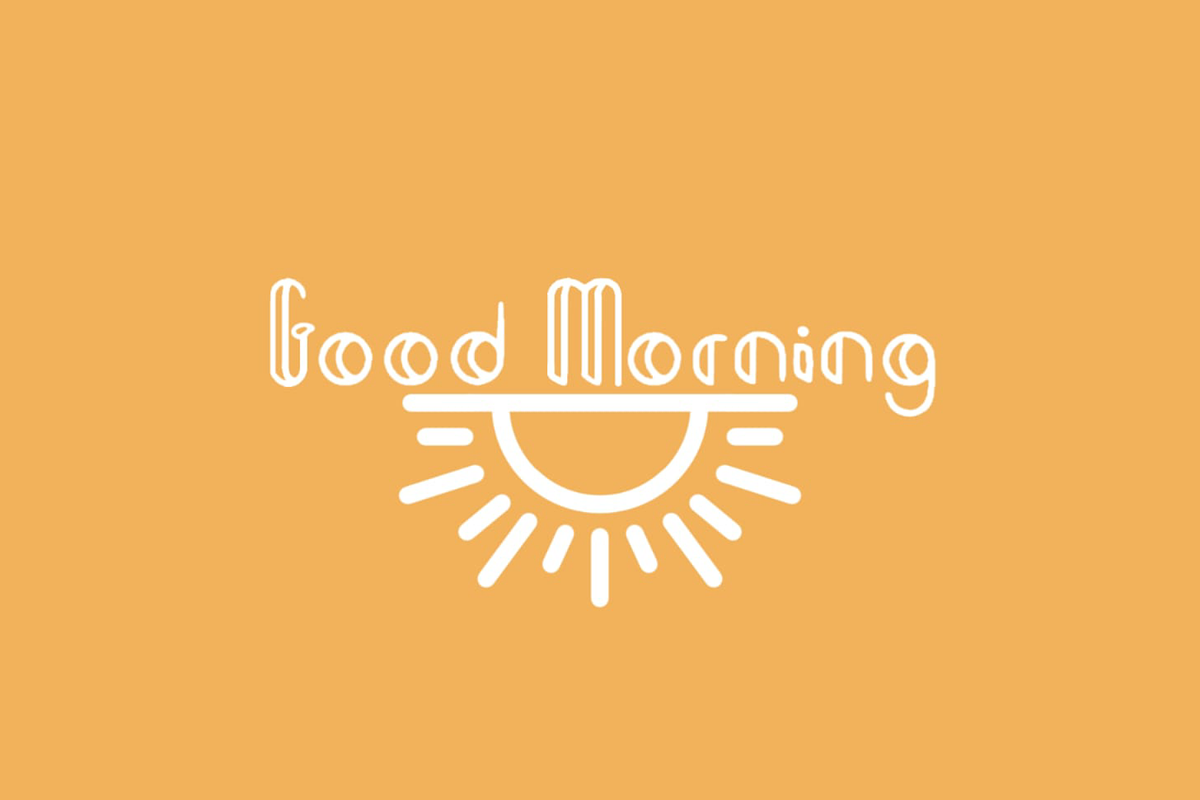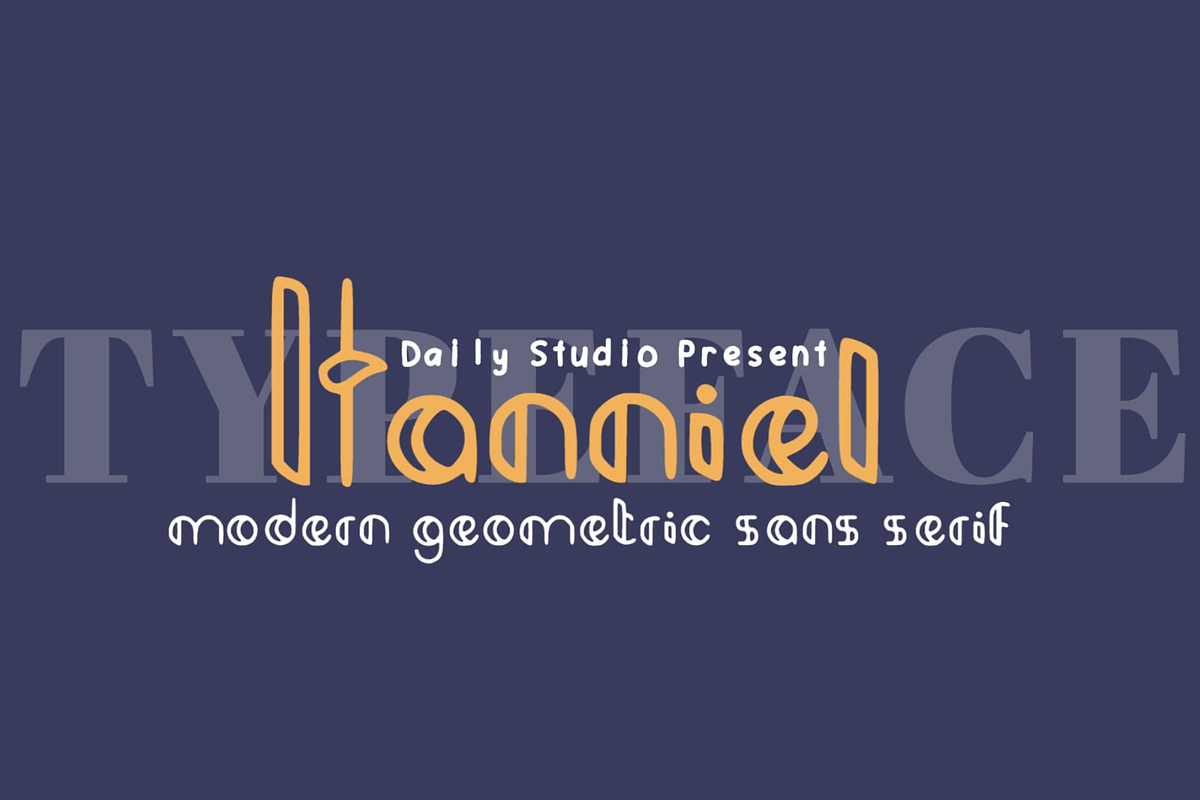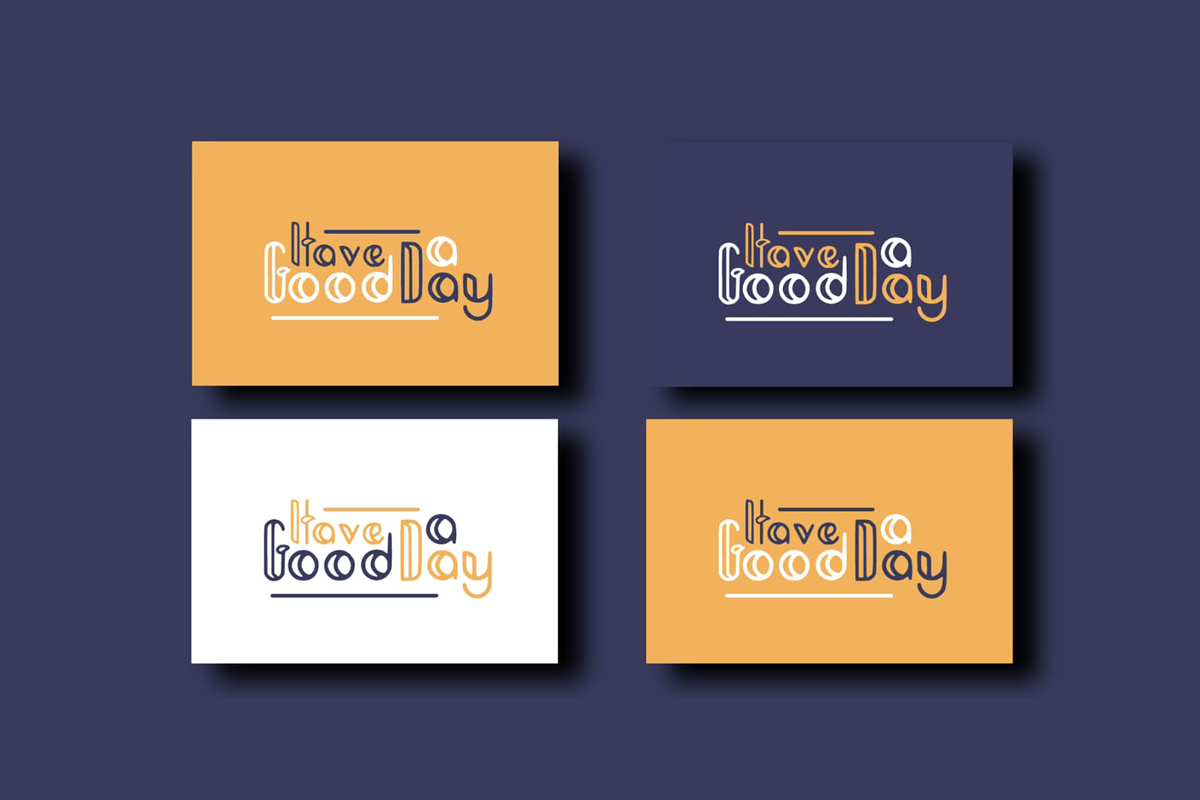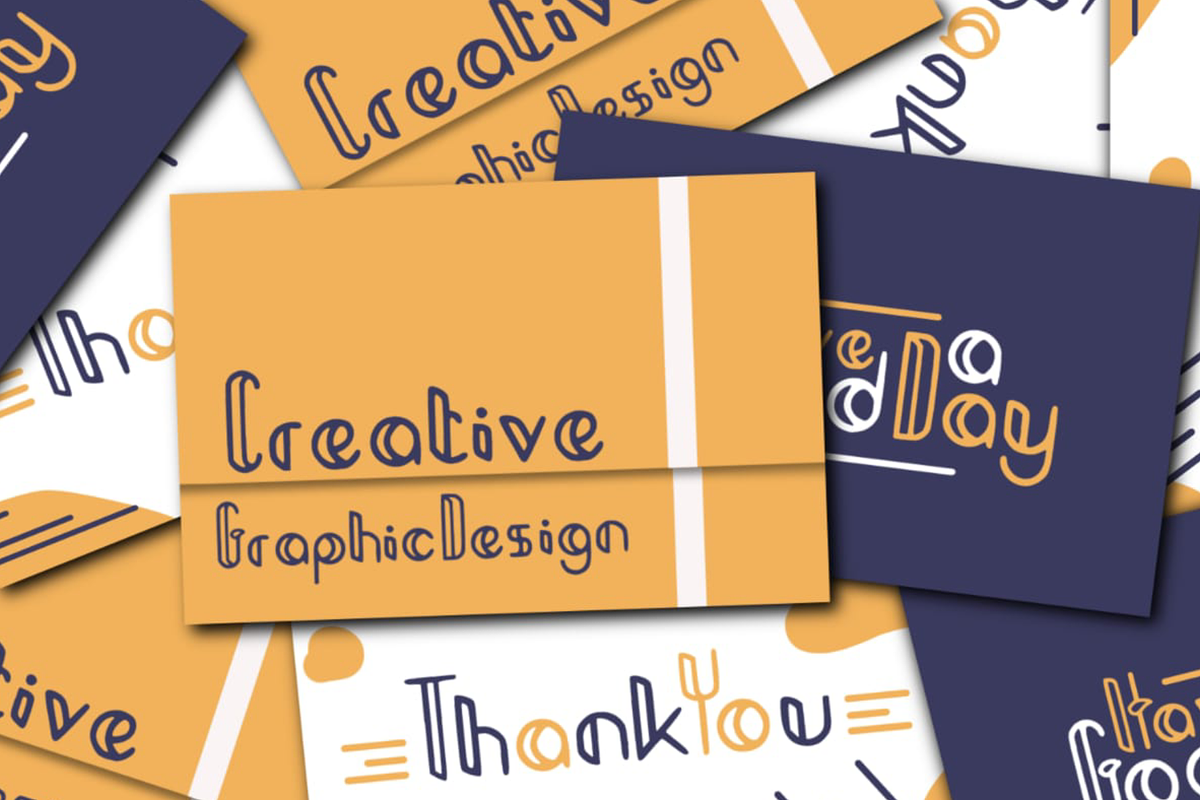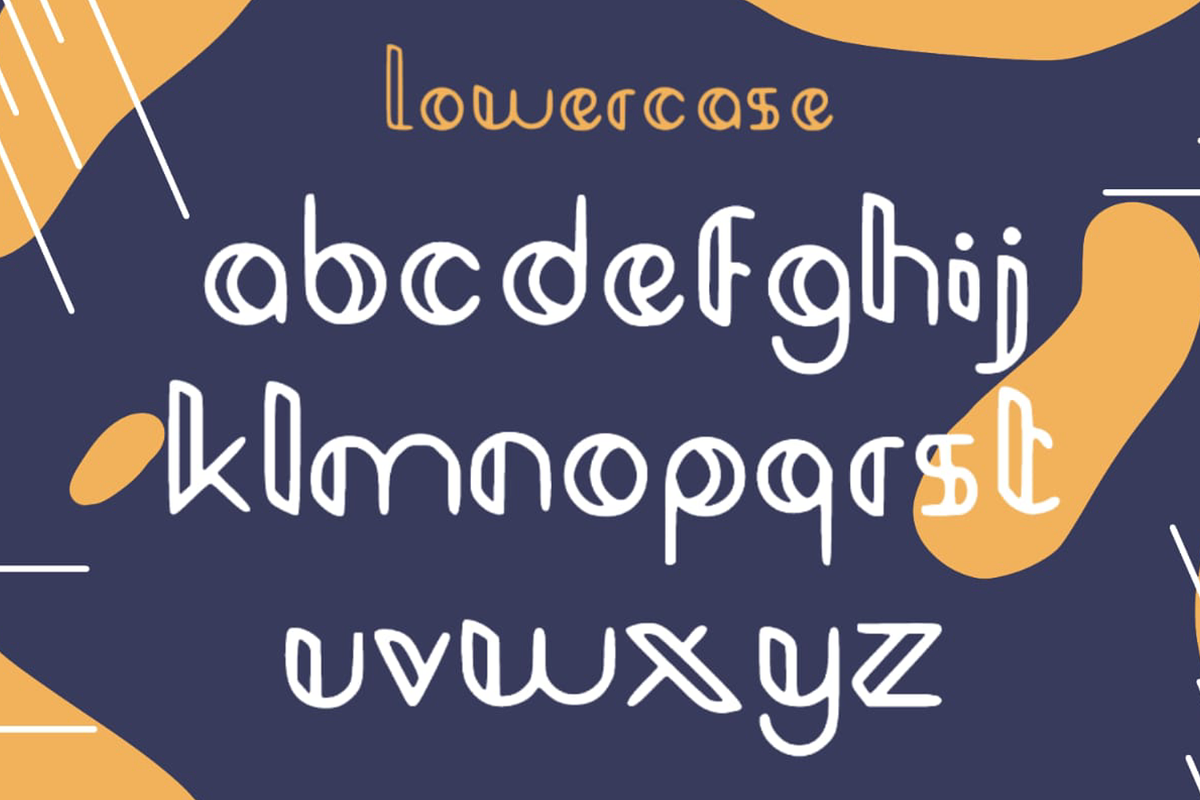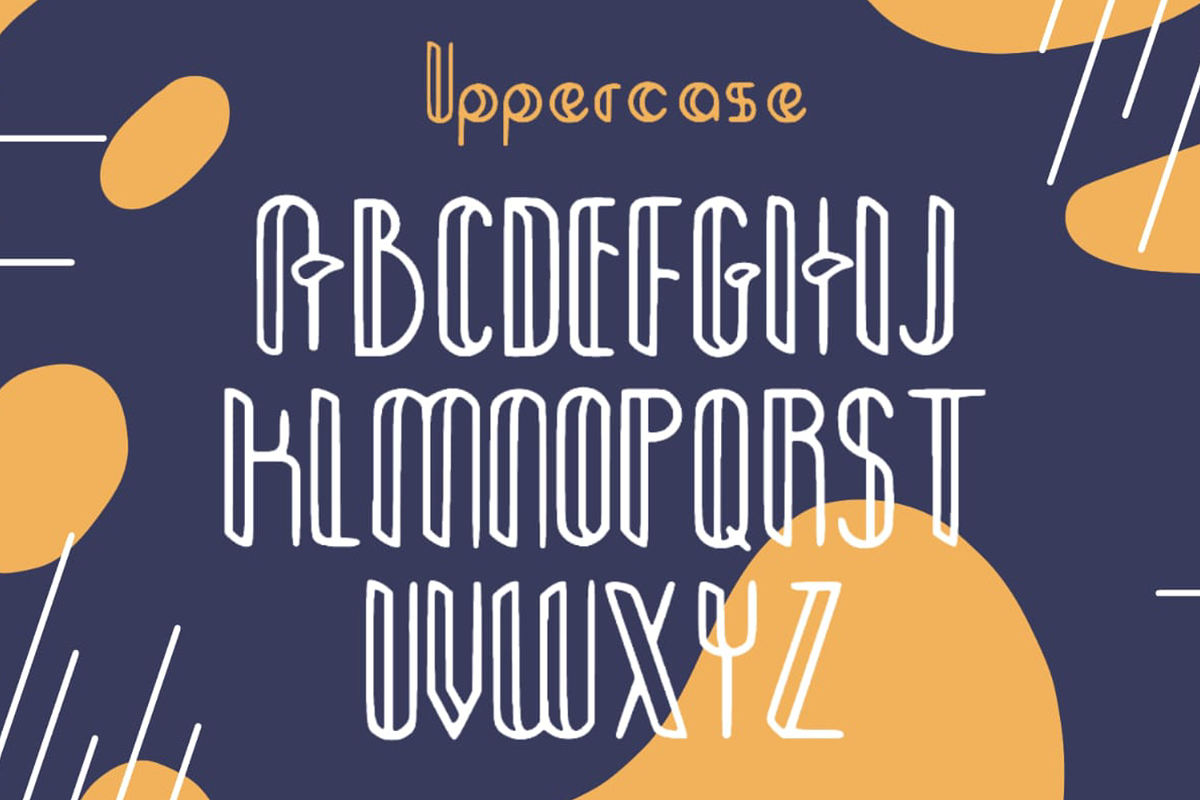
Hanniel
Hanniel - a modern geometric sans serif font. This font has an elegant and smooth rounded edge style. Specifically developed to be suitable for logos, headlines, titles, branding, visual identity, business cards, and posters. Round out your fonts collection with this gorgeous typeface and make your design look exceptional.